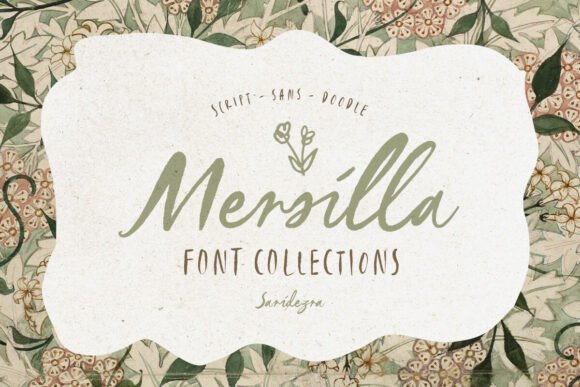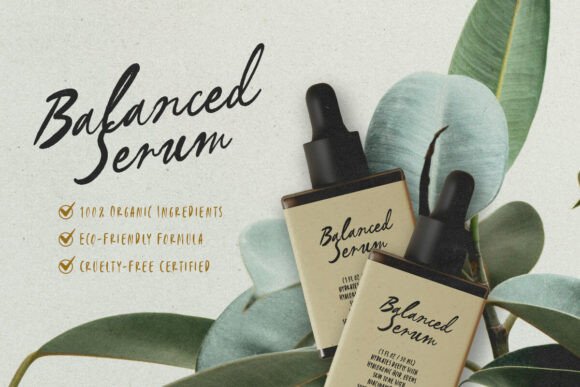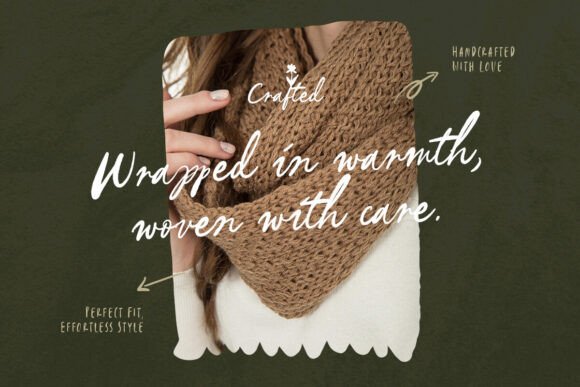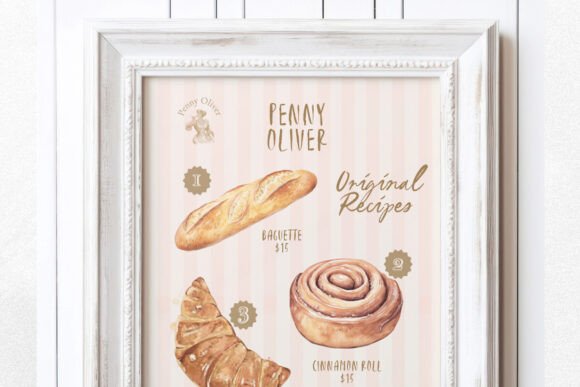
Mersilla Font
About the Mersilla Font
Get ready to be inspired by Mersilla Font, a fresh and dynamic typeface for modern creators. Mersilla is a collection of handmade fonts featuring three styles: script, sans, and doodle. These versatile fonts can be used for various purposes, including branding, logos, handwriting, quotes, and apparel design. The doodle font includes charming hand-drawn elements like stars, bows, flowers, and frames. This font collection also supports multilingual characters, numbers, and symbols, making it perfect for any project.
Mersilla’s playful nature makes it ideal for projects requiring a friendly and approachable aesthetic. It excels in branding for children’s products, invitations, social media graphics, and packaging for whimsical goods. However, its decorative elements make it less suitable for body text or UI elements where readability is paramount. Avoid using it for large blocks of text or situations demanding high legibility.
The script style pairs well with clean sans-serif fonts like Open Sans or Lato for a balanced contrast, while the sans and doodle fonts complement geometric sans-serifs such as Futura or Montserrat for a modern, cohesive feel. Consider pairing the doodle font with a simple serif like Playfair Display for a touch of classic elegance counterpointing the hand-drawn charm.
Mersilla’s overall personality is undeniably cheerful and informal. It projects a sense of handcrafted charm and warmth, making it unsuitable for applications requiring sophistication or formality. Its versatility lies in its ability to create fun and engaging designs across various media, but its stylistic flourishes necessitate careful consideration of context and legibility.